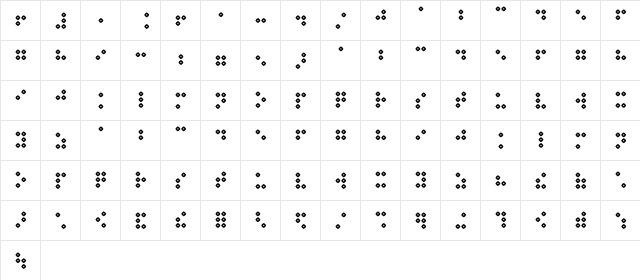
Braillenum Hollow Regular
Design Context for Braillenum Hollow Typeface
Braillenum Hollow takes a measured approach to typography — its balanced proportions and neutral character make it a reliable workhorse for both digital and print work.